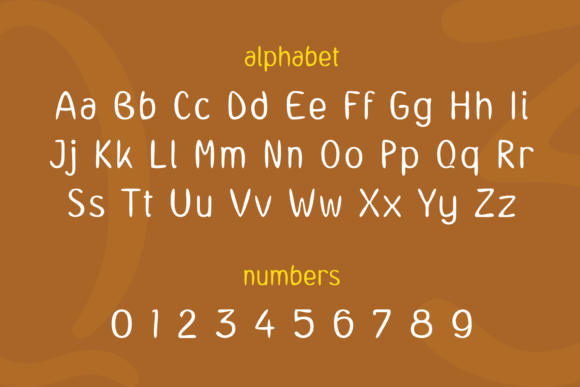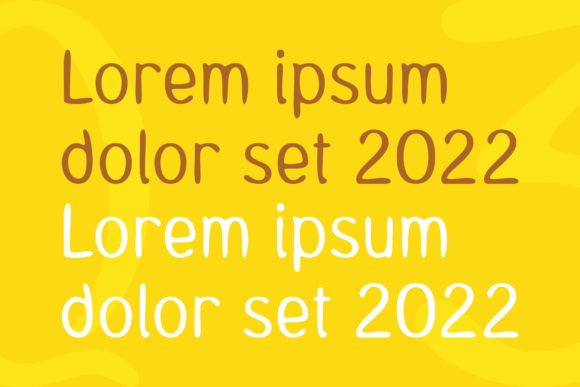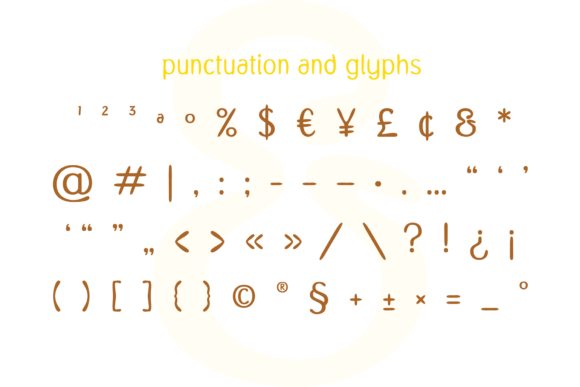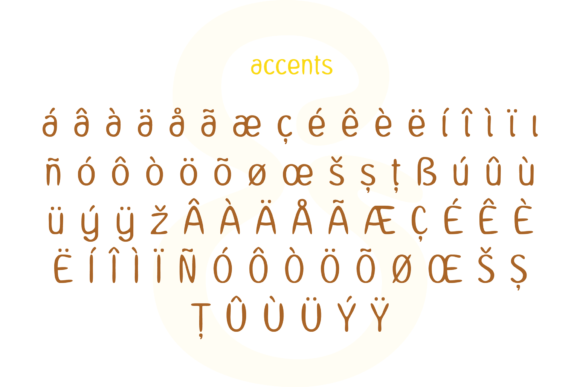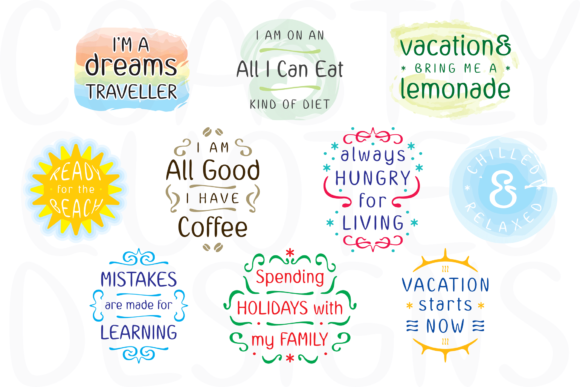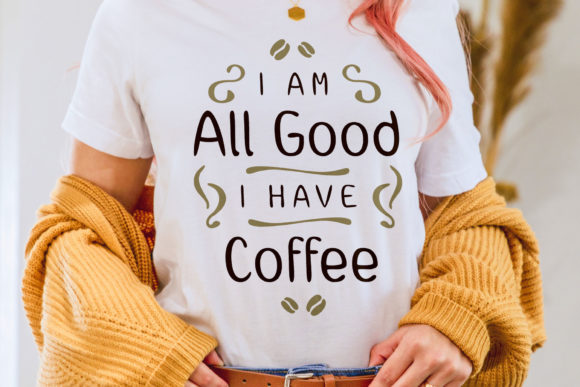
Introducing Coastly Font: Your Go-To for a Relaxing and Calming Design Experience
Are you looking for a font that instantly transports you to a serene and idyllic setting, making you think of vacations, summer holidays, and quality time with loved ones? Look no further than Coastly, a beautiful handwritten font inspired by the breathtaking Amalfi Coast in Italy. This charming font is designed to evoke feelings of calmness and relaxation, making it perfect for a wide range of design projects, from headlines and posters to product design, quotes, branding, and marketing materials.
The Inspiration Behind Coastly
Coastly’s name and color palette are deeply rooted in the Amalfi Coast’s picturesque landscape, famous for its lush lemon groves and crystal-clear waters. The font’s creator drew inspiration from the region’s iconic lemons, which are often used to make limoncello, a popular Italian digestif. The font also brings to mind refreshing glasses of lemonade made from freshly squeezed lemons, granita, ice cream, and leisurely ferry trips along the coast.
Perfect for Holiday and Seasonal Designs
Coastly is not only ideal for summer-themed designs but also perfect for various holidays throughout the year, such as Christmas, Thanksgiving, Easter, New Year’s Eve, Mother’s Day, and more. Its versatility allows you to use it for a wide range of projects, from festive greeting cards to promotional materials for seasonal events.
Coastly Font Features
Coastly is a friendly and approachable font that is easy to read and works well in various design contexts. Its handwritten style gives it a personal touch, making it perfect for designs that require a human and emotive feel. The font comes with a range of bonus quotes designed specifically for you to get started with your creative projects. These quotes are available in both vector and raster formats, making it easy to incorporate them into your designs.
Bonus Quotes to Get You Started
The Coastly font package includes a selection of inspiring and fun quotes that you can use in your designs. Some of the quotes you’ll find include:
- “I am all good I have coffee”
- “Always hungry for living”
- “I’m a dreams traveler”
- “I’m on an all I can eat diet”
- “Vacation & bring me a lemonade”
- “Ready for the beach”
- “Chilled & relaxed”
- “Mistakes are made for learning”
- “Spending holidays with my family”
Why Choose Coastly Font?
Coastly font is the perfect choice for designers and crafters looking for a unique and relaxing font to add a personal touch to their designs. Here are just a few reasons why you should consider using Coastly:
- Unique and Handwritten Style: Coastly’s handwritten style sets it apart from other fonts, giving your designs a personal and emotive feel.
- Versatility: Coastly works well in various design contexts, from headlines and posters to product design, quotes, branding, and marketing materials.
- Inspirational Quotes: The font comes with a range of bonus quotes to get you started with your creative projects.
- Easy to Read: Coastly is easy to read, making it perfect for designs that require a clear and legible font.
Coastly font is the perfect addition to any designer’s toolkit, offering a unique and relaxing font that evokes feelings of calmness and serenity. With its handwritten style, versatility, and inspirational quotes, Coastly is ideal for a wide range of design projects. Whether you’re looking to create summer-themed designs, holiday greeting cards, or simply want to add a personal touch to your branding and marketing materials, Coastly is the perfect choice.